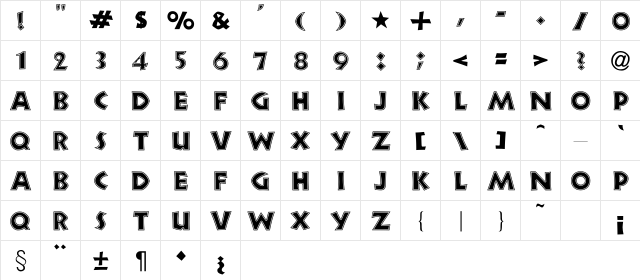
New Land Sport Normal
Design Context for New Land Sport Typeface
New Land Sport brings high-energy athletic personality to the page — its confident, muscular forms are built for impact.
A natural choice for gym brands, fantasy sports, jersey lettering, and action-driven headlines.
Pro Tip: Use New Land Sport in all-caps headlines where its athletic energy can fully express itself. Pair with a solid, simple sans for supporting text.